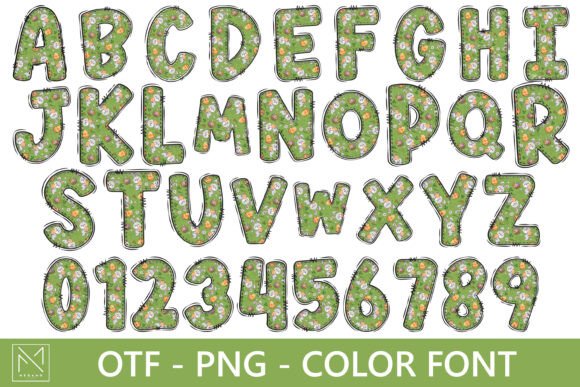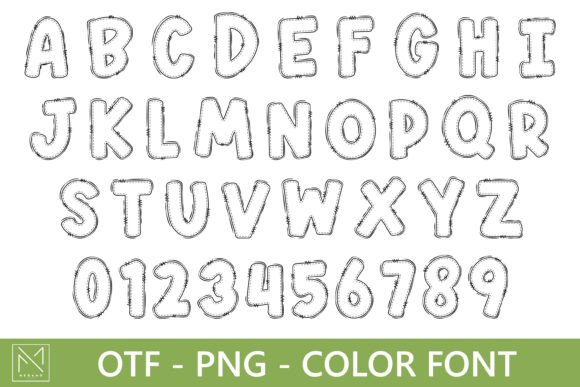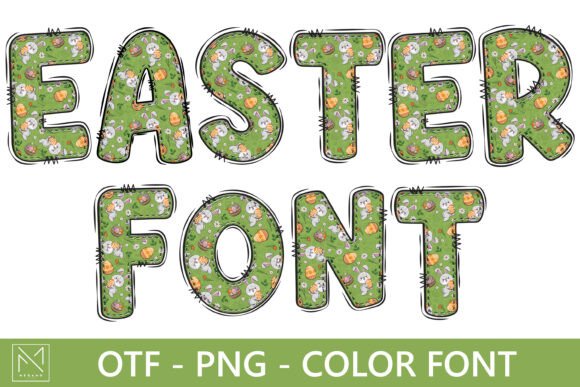
Hop into Creativity with the Easter Alphabet Font Collection
Are you ready to make your Easter celebrations a little more special and a lot more creative? Look no further than the Easter Alphabet Font Collection! This delightful collection is packed with distinctive font styles and adorable illustrated icons that will add a fun and unique twist to any design project. From greeting cards to holiday decorations, and from shirts to home decor items, this font and icon set is the perfect tool to elevate your Easter holiday.
What’s Included in the Easter Alphabet Font Collection?
The Easter Alphabet Font Collection is a treasure trove of creative assets, featuring:
- Distinctive Font Styles: A range of unique and eye-catching font styles that will add a touch of Easter magic to your designs.
- Cute Illustrated Icons: Irresistibly cute icons, including bunnies, Easter eggs, carrots, and little chicks, that will bring your designs to life.
- Vibrant Colors and Patterns: A variety of vibrant colors and patterns that will add a pop of fun and festivity to your designs.
Whether you’re a professional designer or a crafter looking for a fun and creative way to celebrate Easter, the Easter Alphabet Font Collection is the perfect resource for you. With its wide range of uses, including:
Why Choose the Easter Alphabet Font Collection?
With so many font and icon sets on the market, why choose the Easter Alphabet Font Collection? Here are just a few reasons:
- Unique and Eye-Catching: The distinctive font styles and cute illustrated icons in this collection are sure to make your designs stand out.
- Versatility: The Easter Alphabet Font Collection can be used for a wide range of creative projects, from greeting cards to holiday decorations.
Get Ready to Elevate Your Easter Celebrations
In conclusion, the Easter Alphabet Font Collection is a must-have resource for anyone looking to elevate their Easter celebrations. With its distinctive font styles, cute illustrated icons, and vibrant colors and patterns, this collection is sure to add a touch of Easter magic to any design project. Whether you’re a designer, crafter, or simply someone who loves to celebrate the holiday season, this collection is the perfect tool to make your Easter celebrations a little more special and a lot more creative.